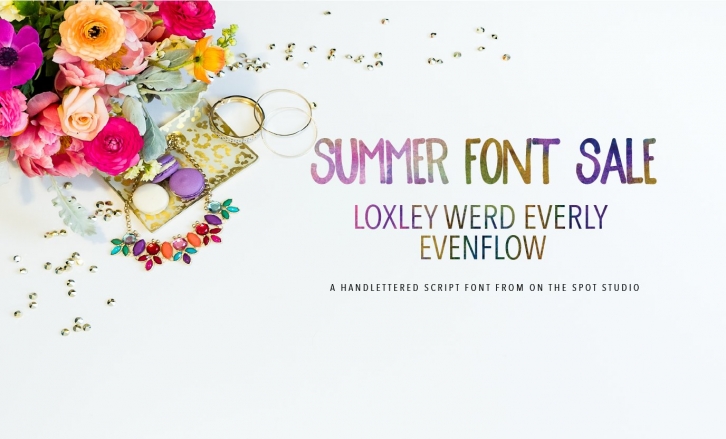
Includes an UNRELEASED font "Evenflow" an all lowercase journaling font.
Fonts included :
Evenflow (lowercase alpha with a few extas, no punctuation included in this font)